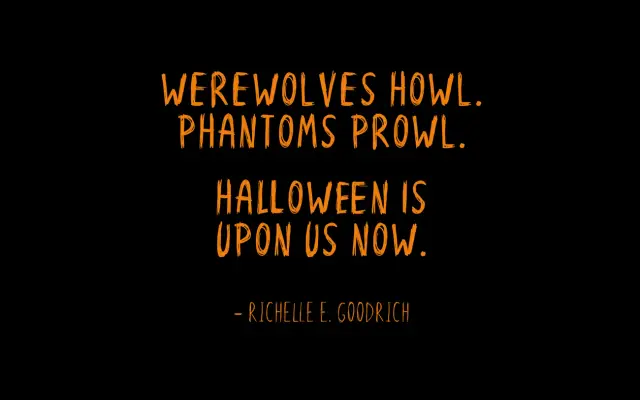
An all-caps, scratchy Halloween display font supplied with over 40 matching scribble illustrations including skulls, ghosts and voodoo dolls.
Voodoo is a hand-drawn, all-caps typeface built around a deliberate scratchy and scribbled texture suited to Halloween and seasonal horror themes. It comes in Regular and Bold weights and ships with a set of more than 40 matching illustrations covering skulls, spiders, ghosts and voodoo dolls. Its scope is narrow and intentional, making it a ready-made toolkit for themed packaging, event posters or seasonal branding.
An all-caps, scratchy hand-drawn font with deliberate scribble texture, placing it firmly in the display/novelty category rather than a general script or handwriting classification.